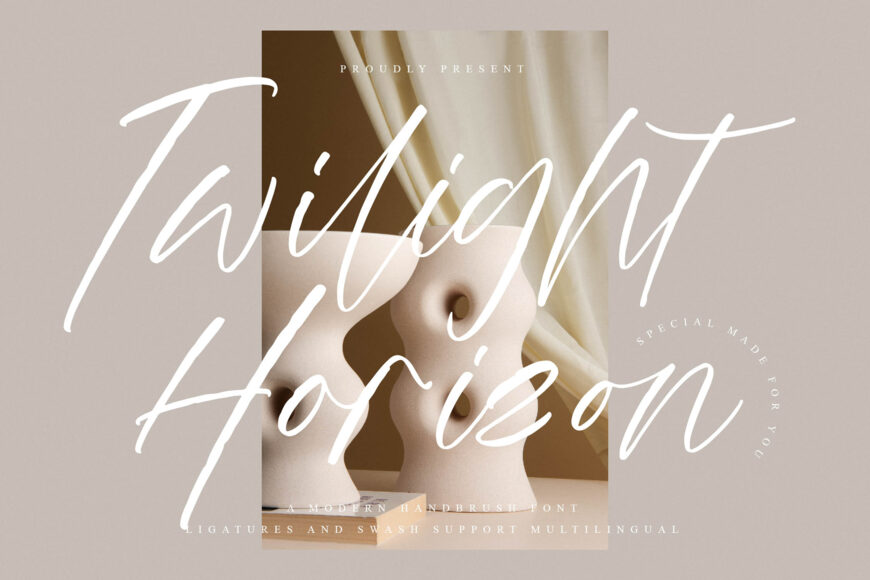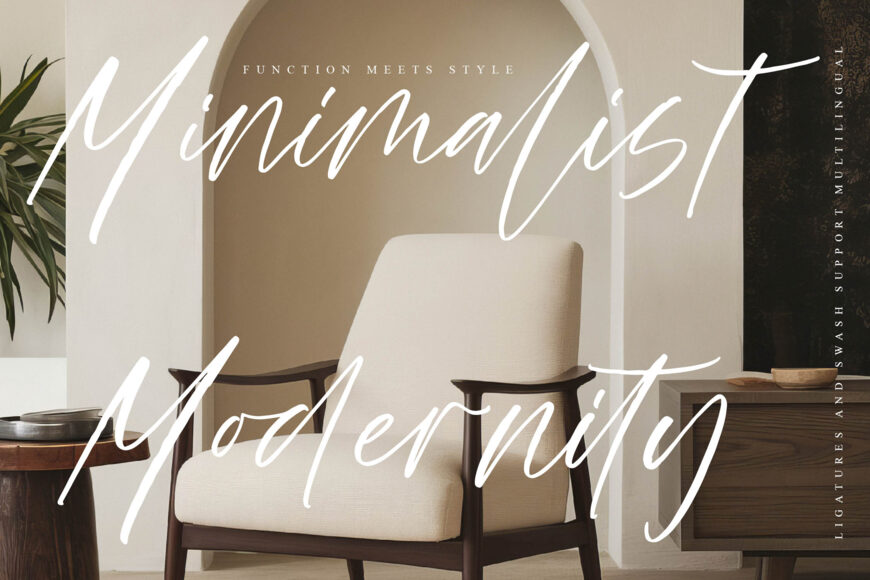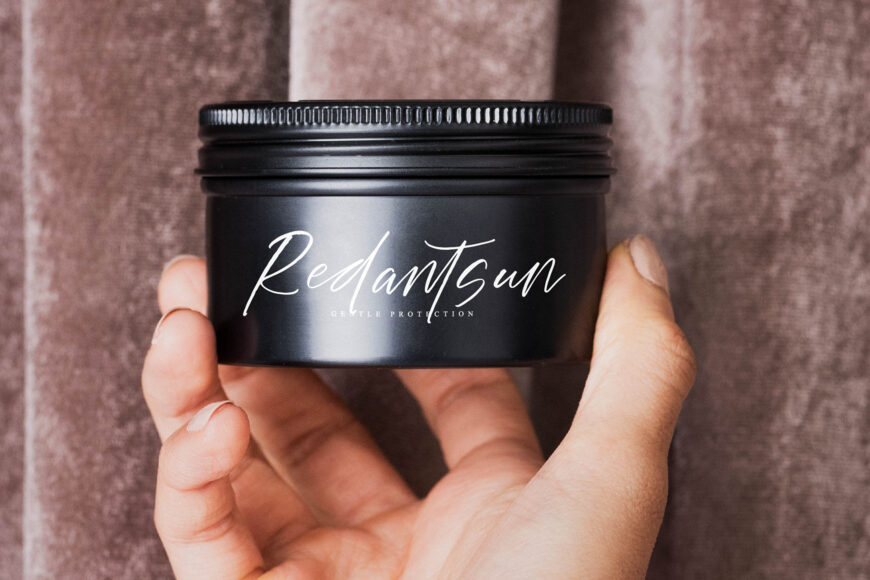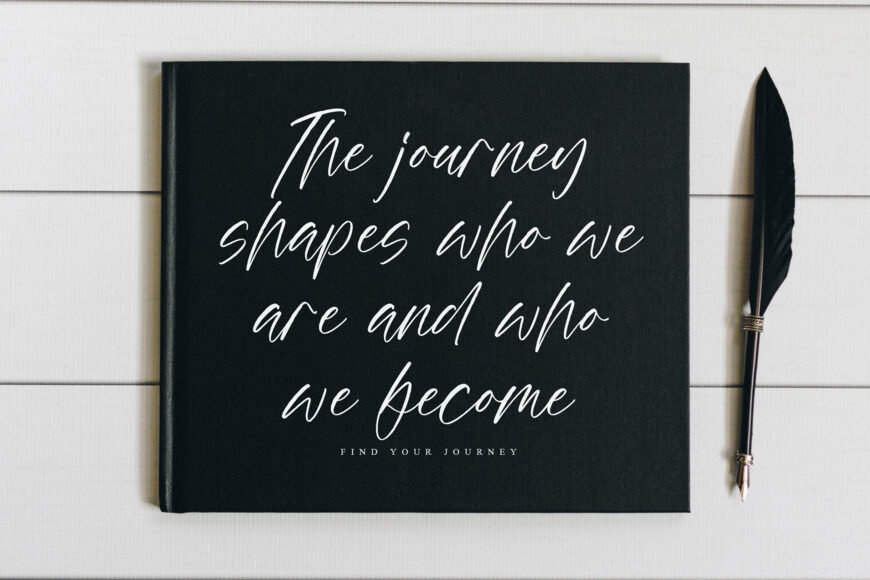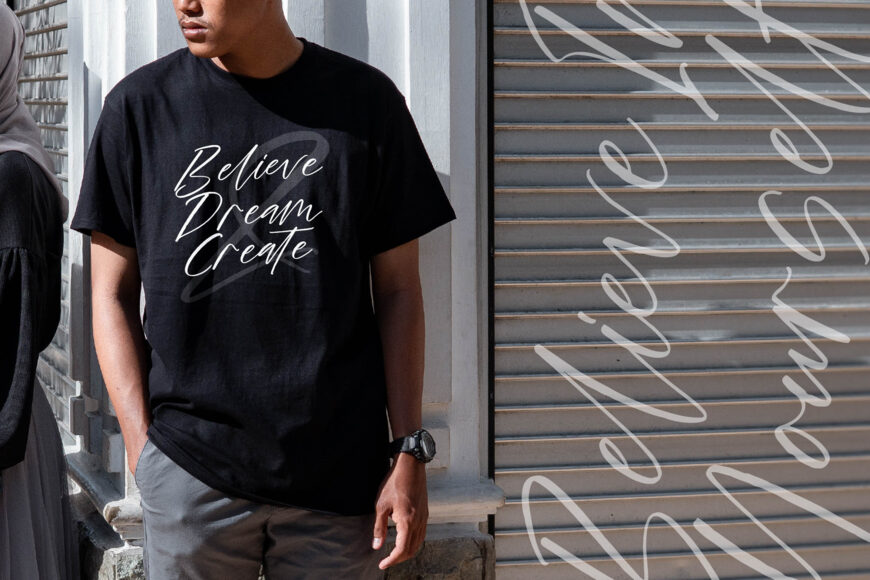
Twilight Horizon is a sophisticated handbrush script font that captures the beauty of natural brush strokes and contemporary elegance. Designed with expressive movement, graceful curves, and refined handwritten details, this typeface brings a sense of luxury, creativity, and authenticity to every project.
Whether you’re crafting luxury branding, fashion campaigns, social media graphics, wedding stationery, editorial layouts, or premium packaging, Twilight Horizon delivers a timeless handwritten brush aesthetic that blends modern elegance with artistic expression.